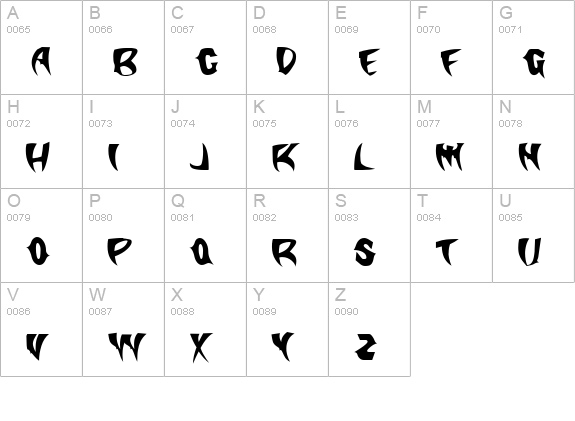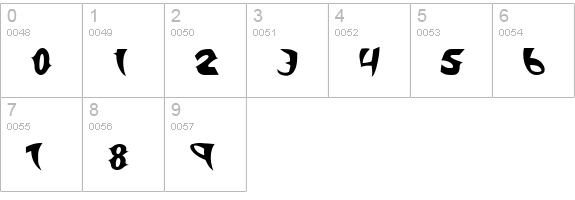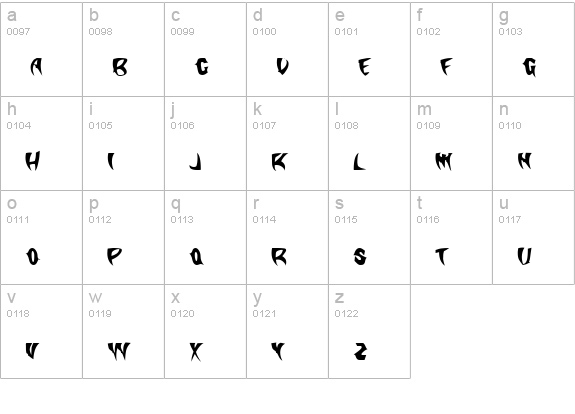
Klingon Stilleto Font Details
Introducing the fierce and powerful Klingon Stilleto font! This font is not for the faint of heart, as its sharp edges and bold letterforms embody the strength and intensity of the Klingon warriors. With its distinct and aggressive design, Klingon Stilleto commands attention and demands respect. But here's the best part: Klingon Stilleto is available for free! That's right, you can freely download this incredible font at FontsMarket.com, the ultimate destination for typography enthusiasts. Whether you're a die-hard Star Trek fan or simply seeking a font that exudes strength and determination, Klingon Stilleto will exceed your expectations. Each character of Klingon Stilleto has been meticulously crafted to showcase the essence of Klingon culture, with intricate details that reflect their warrior spirit. From the jagged serifs to the angular shapes, every element of this font contributes to its raw and untamed aesthetic. Whether you're creating graphics for a sci-fi convention, designing a logo for a fearless sports team, or simply want to add a touch of boldness to your personal projects, Klingon Stilleto is the perfect choice. Its versatility allows it to be used in a variety of contexts, making it a valuable tool for designers and creatives alike. So don't wait any longer - unleash your inner warrior and download Klingon Stilleto for free at FontsMarket.com today. With its striking presence and distinctive design, this font is sure to make a lasting impression and leave your audience in awe. Embrace the power of Klingon Stilleto and let your creativity soar to new heights!